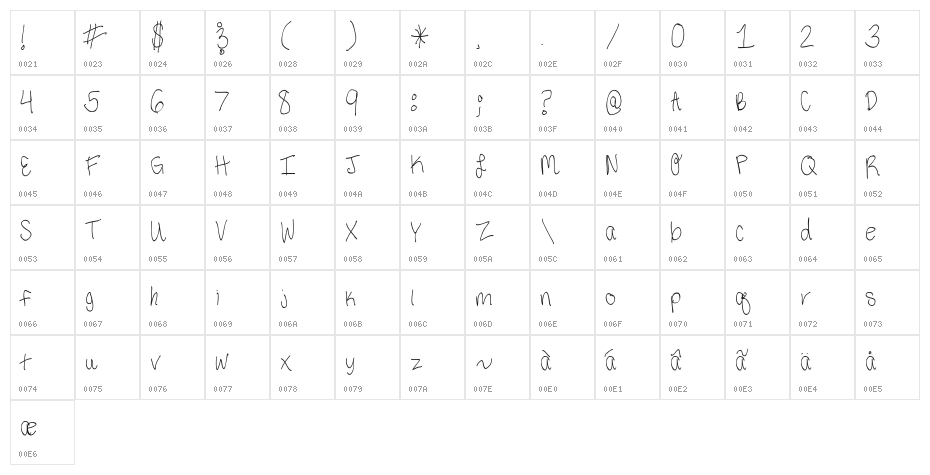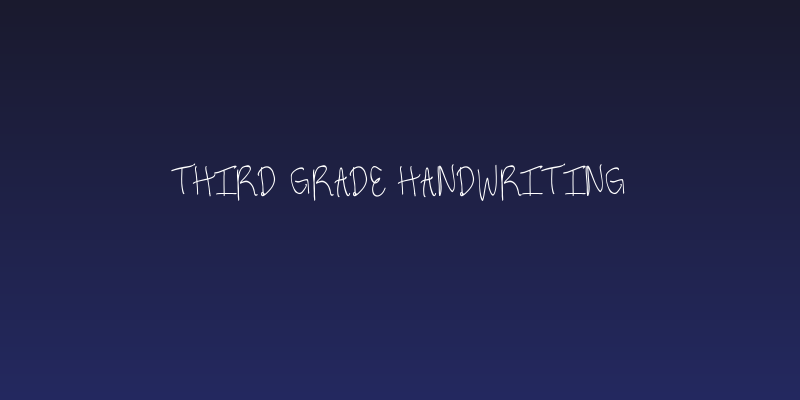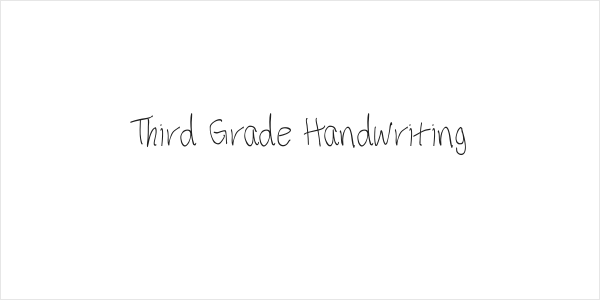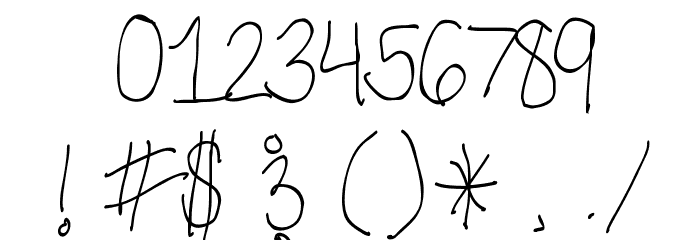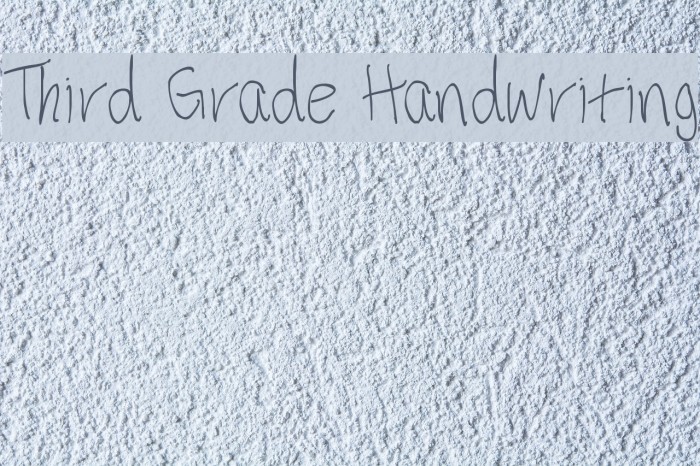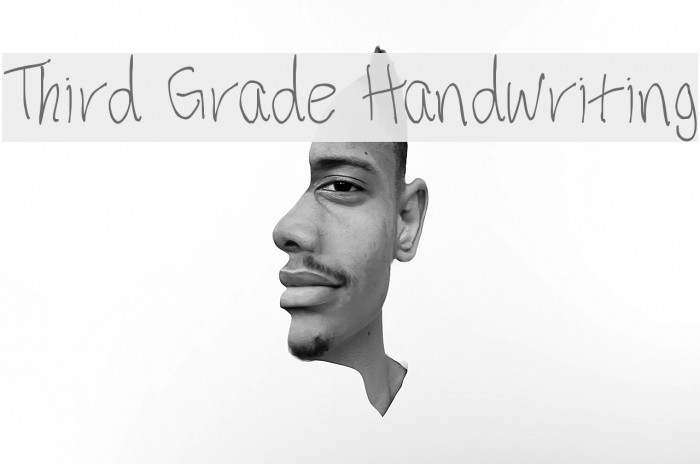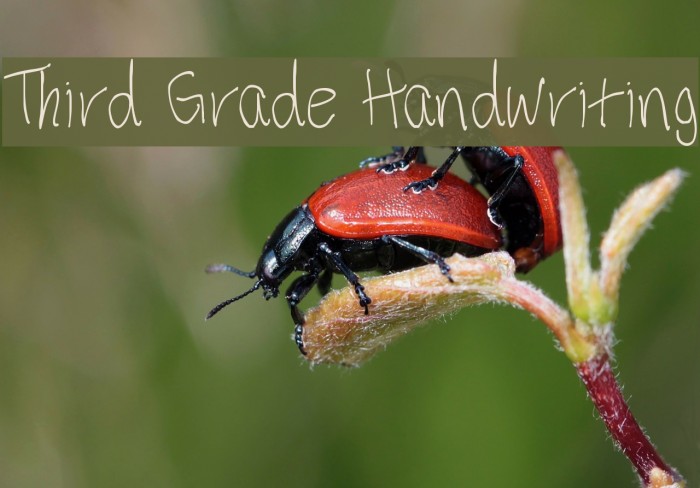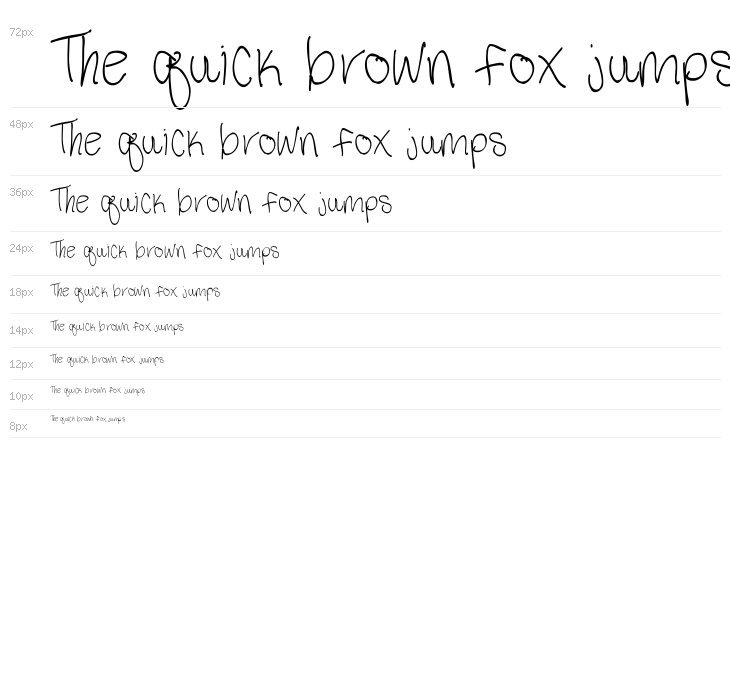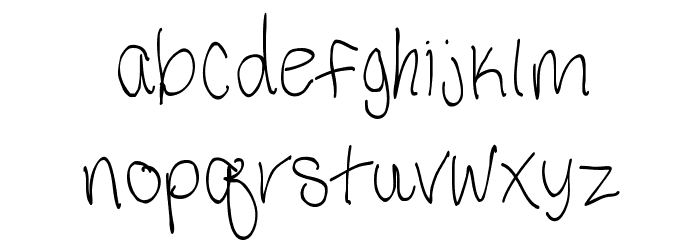
Third Grade Handwriting Font
Third Grade Handwriting Description
This playful and informal font mimics the natural, unrefined handwriting style of a child. The letters are unevenly sized and spaced, with a whimsical and carefree appearance. The strokes are smooth and rounded, giving it a friendly and approachable feel. The font maintains a consistent baseline, but the heights of the letters vary, adding to its charm. It includes both uppercase and lowercase letters, numerals, and a selection of special characters. This font is perfect for projects that require a personal touch or a sense of innocence and creativity.
| Proposed Projects | Ideal for children's books, educational materials, greeting cards, and playful branding. |